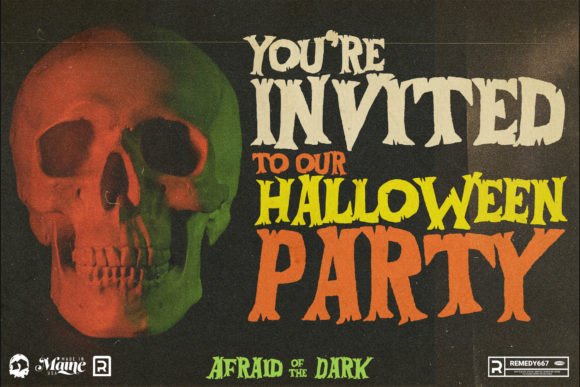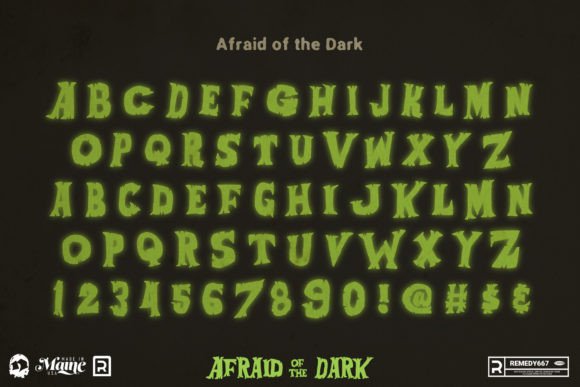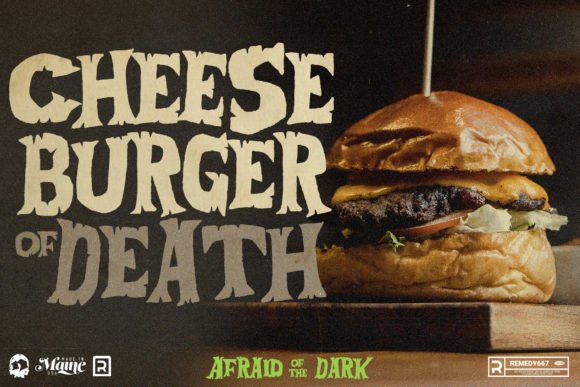
Introduction to Afraid of the Dark Font
Afraid of the Dark evokes feelings of classic horror camp from the glory days of William Castle and Vincent Price.
Inspired by vintage 70’s horror film posters, and title cards… it’s an instant classic, perfect for a multitude of projects including headlines, t-shirts, album covers, games, and more… bring your packaging projects to life, or are you Afraid… of the Dark .
Key Features of Afraid of the Dark Font